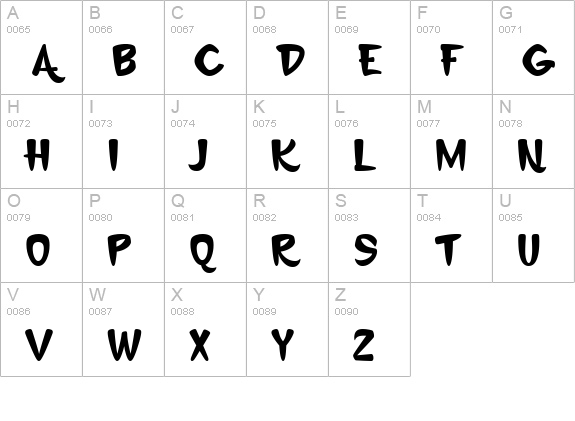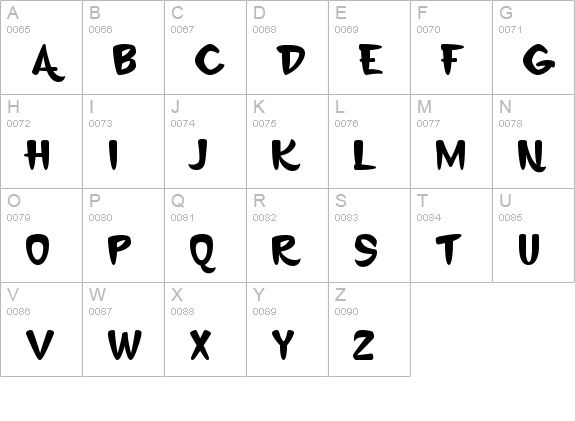
KonTikiLanaiJF Font Details
KonTikiLanaiJF is a stunning and unique font that exudes elegance and sophistication. With its sleek lines and intricate details, this font is perfect for adding a touch of class to any project. The flowing curves and sharp angles of KonTikiLanaiJF create a visually captivating look that is sure to impress. What makes KonTikiLanaiJF even more appealing is that it is available for free download at FontsMarket.com. This means that you can easily access this beautiful font without having to worry about any costs. Whether you are working on a personal project or a professional design, KonTikiLanaiJF is a versatile font that will elevate your work to the next level. Don't miss out on the opportunity to enhance your designs with KonTikiLanaiJF. Download it for free today at FontsMarket.com and let your creativity soar.